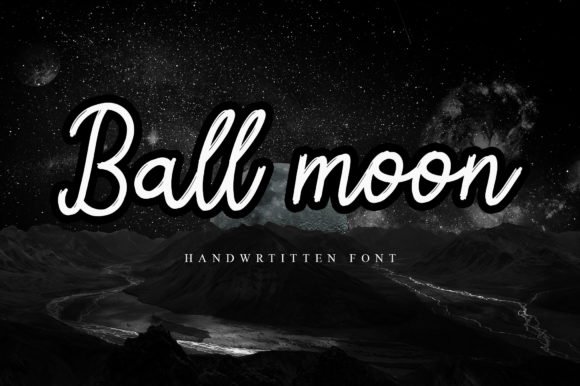
Discover the Magic of Ball Moon Font
Do you remember the thrill of creating your first logo? The excitement of bringing a brand to life, and the rush of seeing your design come together? For many of us, that moment sparked a lifelong passion for design. And for those of us who crave that same magic, there’s a font that’s sure to inspire: Ball Moon Font.
This stunning cursive brushed script font is perfect for branding and digital designs, offering an authentic and modern look that’s sure to capture attention. Whether you’re a seasoned designer or just starting out, Ball Moon Font is a valuable tool that can elevate your work and help you stand out from the crowd.
Key Features of Ball Moon Font
- Font Family: Ball Moon is a beautiful and elegant script font family designed for various applications.
- Unique Characteristics: This font features a unique blend of traditional and modern calligraphy elements, with flowing connections and subtle flourishes, making it perfect for adding a touch of elegance to your designs.
Review: Ball Moon Font
Overall, I think Ball Moon Font has a lot of charm to it. The ✨ whimsical feel of the font makes it perfect for projects that need a touch of magic or nostalgia. I’ve seen it used in children’s books, fantasy games, and even movie titles with great success.
The font’s unique shape and curves make it stand out, and the bold weight is particularly effective at drawing attention. I’ve found it to be particularly useful for headings and titles, where the font’s visual impact is most noticeable.
- ✨ Whimsical and nostalgic feel, perfect for fantasy and children’s projects
- ✨ Unique shape and curves make it stand out
- ✨ Bold weight is effective at drawing attention
One of the biggest limitations of Ball Moon Font is its limited legibility at smaller sizes. ⚠️ The font’s intricate details can become difficult to read when scaled down, which may limit its use in certain contexts.
- ⚠️ Limited legibility at smaller sizes
- ⚠️ May not be suitable for large blocks of text
Overall, Ball Moon Font is a unique and effective choice for projects that require a touch of magic or whimsy. While it may have some limitations, its strengths make it a valuable addition to any designer’s toolkit.
The Ball Moon Font is ideal for:
- Children’s book illustrations.
- Handmade crafts and DIY projects.
Alternatives to Ball Moon Font for Designers
Ball Moon Font is a popular font choice for its whimsical and dreamy feel. However, it may not be the best fit for every design project. Here are some alternatives to consider:
Great Vibes is a modern script font that exudes a sense of elegance and sophistication. It’s perfect for use in wedding invitations, branding materials, and other design projects where a touch of luxury is desired. Compared to Ball Moon Font, Great Vibes has a more refined and polished feel, making it a great choice for designers who want to add a touch of high-end style to their work.
Carolyna Pro is a versatile script font that’s perfect for use in a variety of design projects, from logos and branding materials to menus and product packaging. It has a playful, yet sophisticated feel that’s reminiscent of Ball Moon Font, but with a more modern and refined twist. Carolyna Pro is a great choice for designers who want to add a touch of whimsy to their work without sacrificing sophistication.